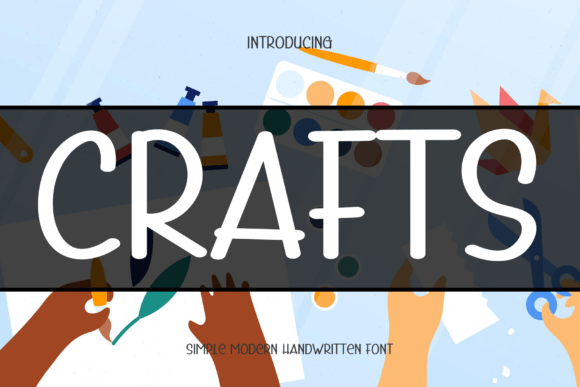
Introduction to Crafts Font
Crafts is a cool and modern display font.
Whether you’re using it for crafts, digital design, presentations, or creating greeting cards, this font has the potential to be your go-to font, whatever the occasion .
Crafts Font offers exceptional quality and versatility, making it a valuable addition to your design toolkit. Whether you’re creating for personal projects or commercial use, Crafts Font delivers professional results.